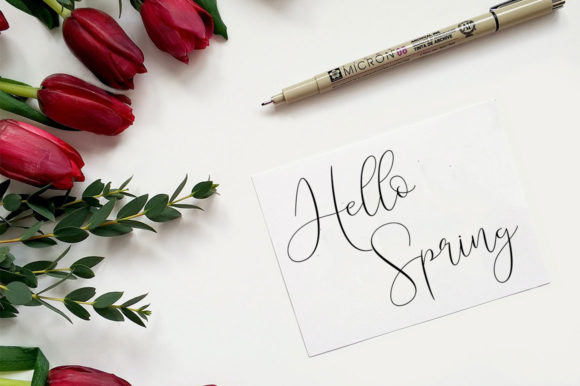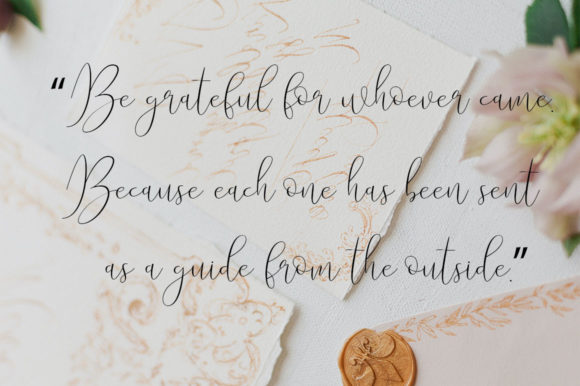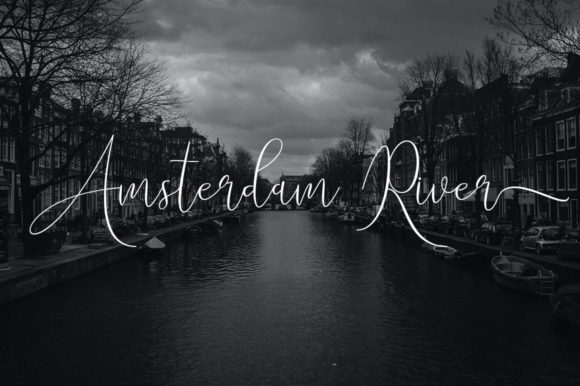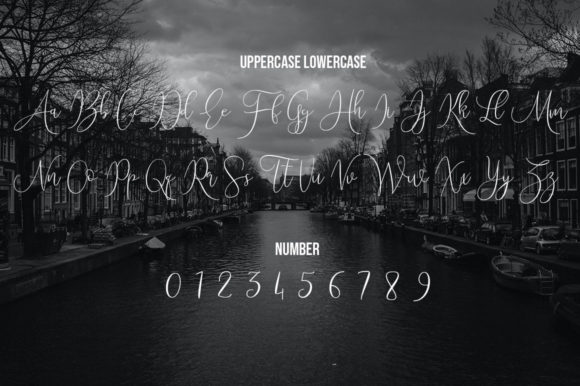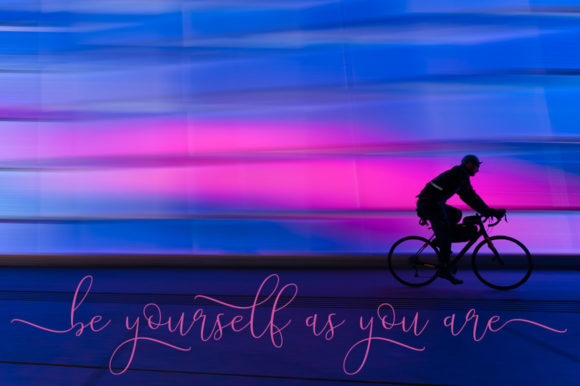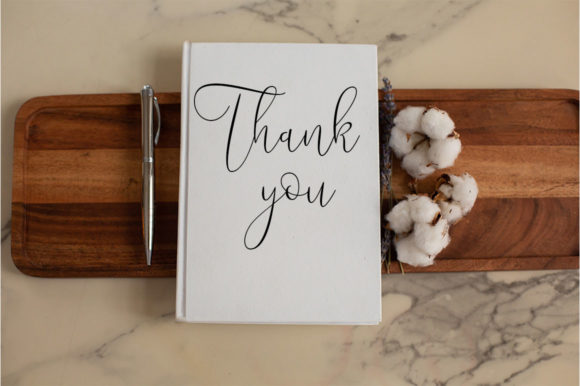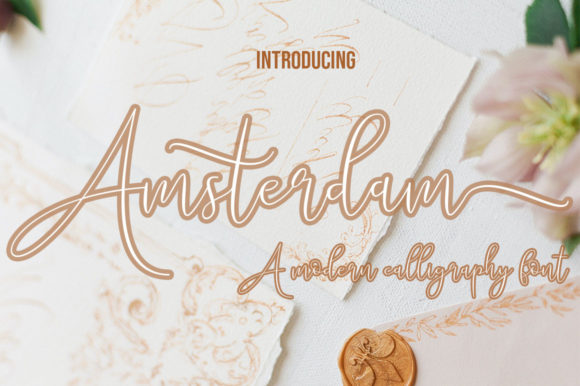
Discover the Charm of Amsterdam Font: Elevate Your Designs with Elegance
Are you on the hunt for a font that exudes elegance, charm, and versatility? Look no further than the Amsterdam Font. This beautiful, neat handwritten font is designed to capture the essence of sophistication and whimsy, making it perfect for designers and crafters alike. In this article, we’ll dive into the world of Amsterdam Font, exploring its features, benefits, and uses, and why it’s a must-have addition to your typography collection.
The Allure of Amsterdam Font
Amsterdam Font is a stunning example of handwritten typography, boasting a clean and neat aesthetic that feels both charming and elegant. Its unique character set is designed to evoke a sense of whimsy and playfulness, while maintaining a level of sophistication that’s hard to find in modern fonts. Whether you’re working on a branding project, crafting a logo, or creating engaging social media content, Amsterdam Font is the perfect choice.
PUA Encoding: Unlocking Endless Creative Possibilities
One of the standout features of Amsterdam Font is its PUA (Private Use Area) encoding. This means that you can access all the glyphs and sweeps easily, giving you unparalleled creative control over your designs. With PUA encoding, you can effortlessly swap out characters, add flourishes, and experiment with different typography combinations to create truly unique and eye-catching designs.
Amsterdam Font is incredibly versatile, making it suitable for a wide range of design applications. From elegant wedding invitations and sophisticated business branding to playful packaging and eye-catching advertising, this font can adapt to any style or theme. Its versatility is unmatched, allowing you to experiment with different design concepts and push the boundaries of your creativity.
So, what makes Amsterdam Font a must-have for designers and crafters? Here are just a few benefits you can expect:
- Elegant and charming aesthetic: Add a touch of sophistication and whimsy to your designs with Amsterdam Font’s unique character set.
- PUA encoding: Enjoy effortless access to glyphs and sweeps, giving you creative control over your typography.
- Versatility: Use Amsterdam Font across a range of design applications, from branding and advertising to packaging and more.
- Easy to use: Amsterdam Font is designed to be user-friendly, making it easy to integrate into your design workflow.
Inspiration and Ideas: Bringing Amsterdam Font to Life
So, how can you use Amsterdam Font to elevate your designs? Here are a few ideas to get you started:
- Wedding invitations and stationery: Add a touch of elegance and romance to your wedding designs with Amsterdam Font.
- Branding and logos: Create a lasting impression with Amsterdam Font’s unique and memorable character set.
- Social media graphics: Stand out on social media with eye-catching graphics and typography featuring Amsterdam Font.
- Packaging and product design: Add a touch of whimsy and charm to your product packaging with Amsterdam Font.
In conclusion, Amsterdam Font is a beautiful, neat handwritten font that offers a unique blend of elegance, charm, and versatility. With its PUA encoding, versatile design, and user-friendly interface, it’s the perfect addition to any designer’s or crafter’s typography collection. Whether you’re working on a branding project, crafting a logo, or creating engaging social media content, Amsterdam Font is sure to elevate your designs and inspire your creativity.